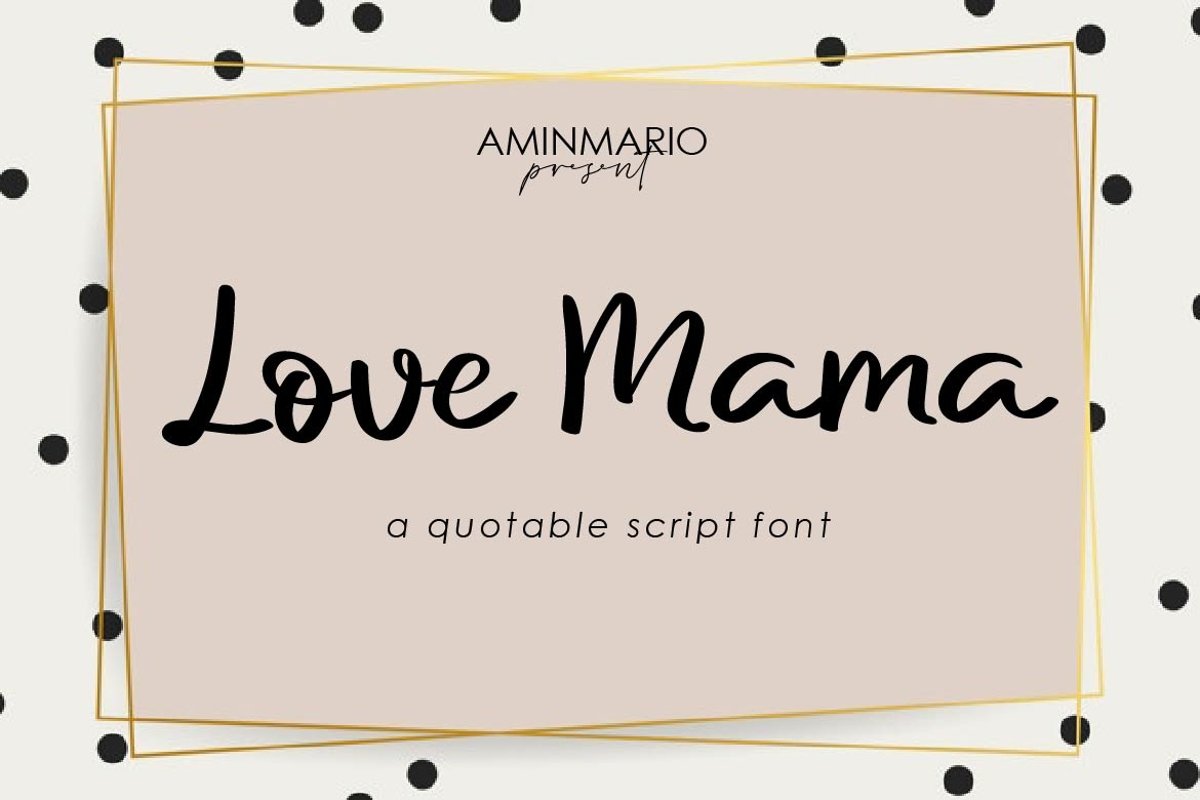
Love Mama
Love Mama is a modern script, full of personality and curves. This font was designed using quick strokes to create natural handwritten, to give the font a natural look in a digital world. Perfect for any awesome project that need hand writing taste. And good for pairing with Sans or Serif. Also support multilingual.
Use ( ) to get love signs.
This is suitable for quotes, invitations, stationery, wedding design, logos, watermarks on photography, signatures, branding, advertisement, album covers, business cards, clothing, magazines, posters, and more!